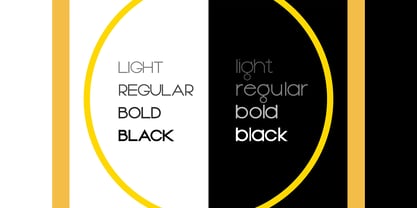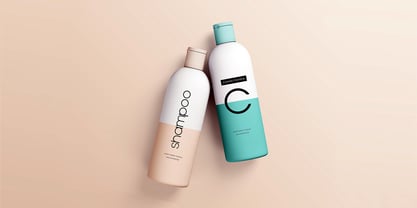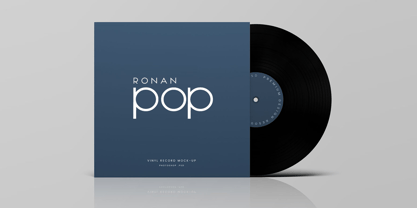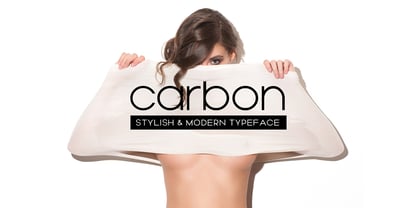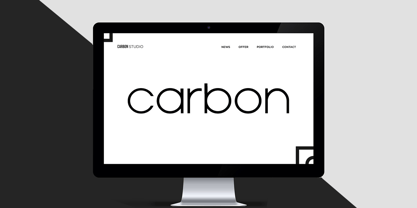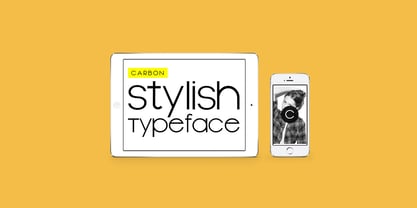
Carbon Nuvo
by Designova
The Carbon Nuvo Font Family was designed by Jean Johnson and published by Designova. Carbon Nuvo contains 8 styles and family package options.
CARBON is a stylish & modern typeface for headlines, fashion, branding & display usage. This font is perfect in its unique way, a rare blend of style and character that stands out from common typefaces. This typeface brings you unlimited combinations possible with adjusted letterspacing techniques such as shown in the demo graphics here.